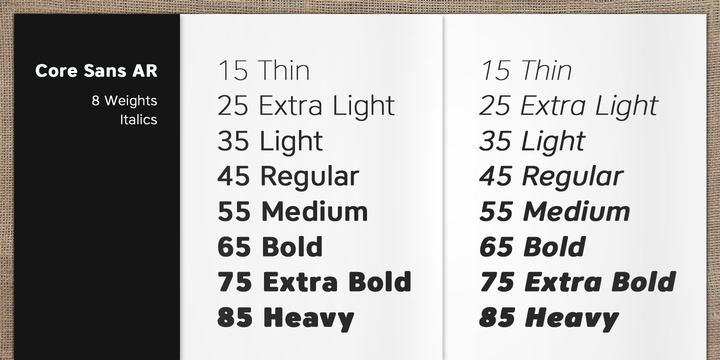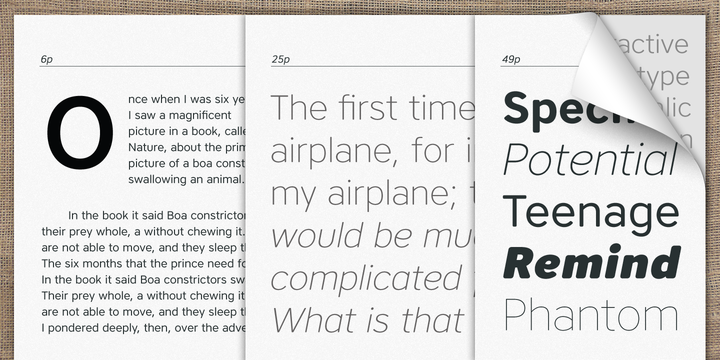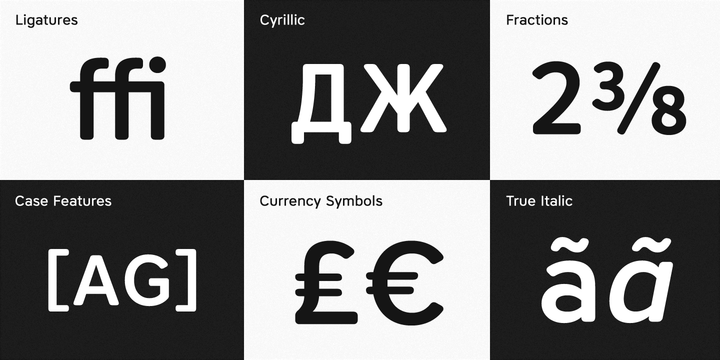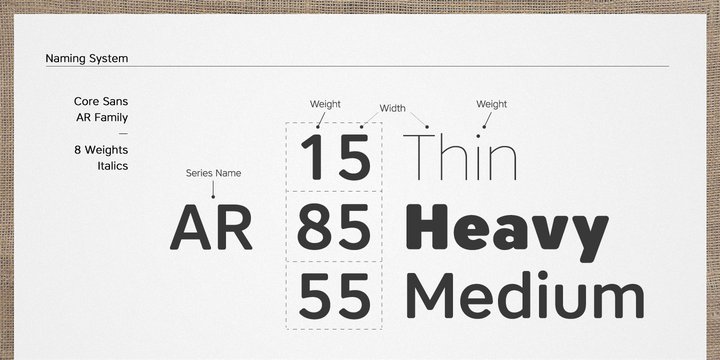
Core Sans AR™ Font Family
Core Sans AR Family is a rounded version of Core Sans A that is clean, simple and highly readable. It is a part of the Core Sans Series such as Core Sans N, Core Sans M, Core Sans E, Core Sans A, Core Sans D, Core Sans G, Core Sans R and Core Sans B.